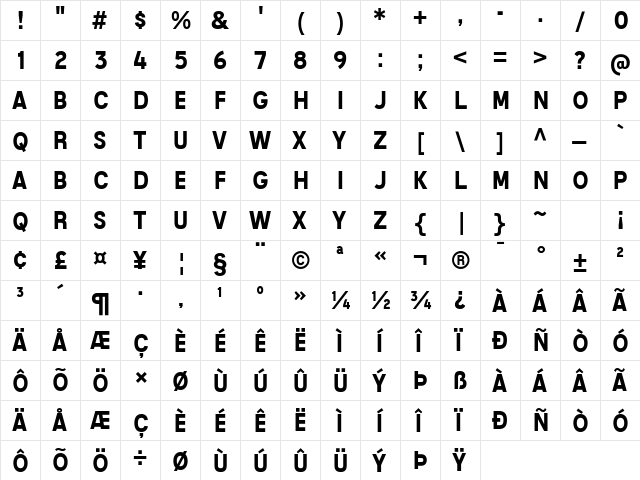
Mixolydian Titling Bold
Design Context for Mixolydian Titling Typeface
Mixolydian Titling takes a measured approach to typography — its balanced proportions and neutral character make it a reliable workhorse for both digital and print work. The heavy weight commands attention and anchors typographic hierarchies.